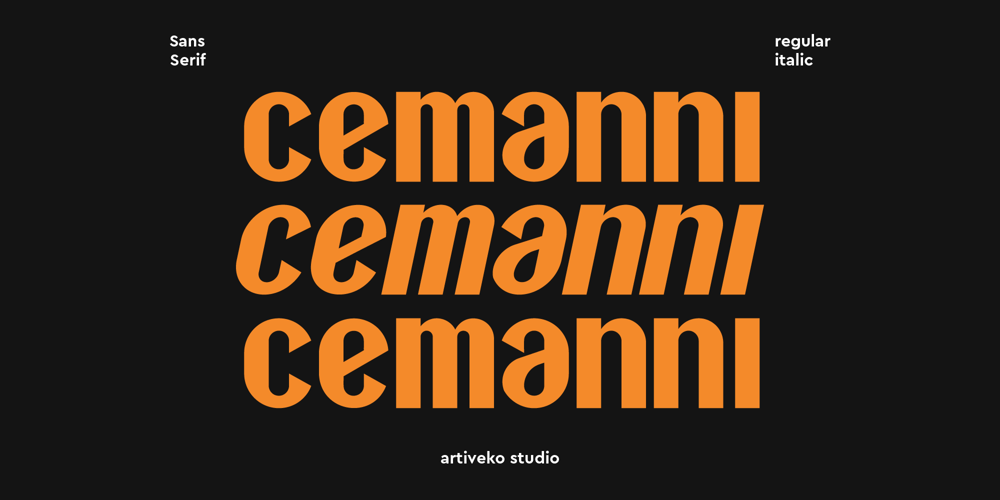
Cemanni Font Family was designed by Iwan Alwan and published by Artiveko. Cemanni contains 2 styles and family package options. Cemanni is a modern, unique sans-serif font crafted by Iwan Alwan. It features distinctive shapes and variations between uppercase and lowercase letters, adding a creative touch to any design. With comprehensive multilingual support, Cemanni is perfect for global use. Ideal for branding, headlines, and creative projects, this font combines modern aesthetics with versatility, ensuring your text stands out with elegance and originality.